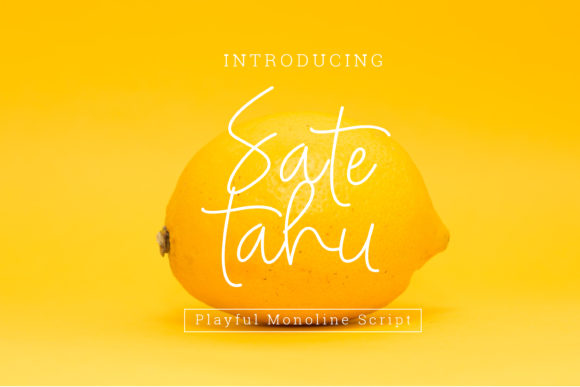
Step into the enchanting world of Sate Tahu, where elegance and playfulness dance on the page! This whimsical script font, crafted by the skilled hands of dangglemstudio, is a symphony of dainty strokes and joyful curves that will elevate your designs to new heights.
Imagine your wedding invitations adorned with the graceful flourishes of Sate Tahu, evoking a sense of timeless romance and creating an unforgettable keepsake. The font's versatility extends to cards, posters, and any project seeking a touch of warmth and charm.
Unleash your creativity with Sate Tahu's effortless flow, capturing the essence of spontaneous scribbles with a captivating charm. This font is not just a tool; it's a muse, inspiring you to craft designs that speak from the heart.
Imagine your film scripts transformed into cinematic masterpieces with the captivating allure of Sate Tahu. Its relaxed strokes will convey the emotional depth of your characters, drawing your audience into their world. Each word, each line will dance across the page, captivating the senses and leaving an unforgettable impression.
With Sate Tahu by your side, the possibilities are endless. Its playful spirit will ignite your imagination, while its delicate touch will add a touch of magic to your every creation. Indulge in the joy of writing and let Sate Tahu guide you to a world where words come alive and emotions soar.
Embrace the artistry of Sate Tahu today and experience the transformative power of a truly exceptional script font!